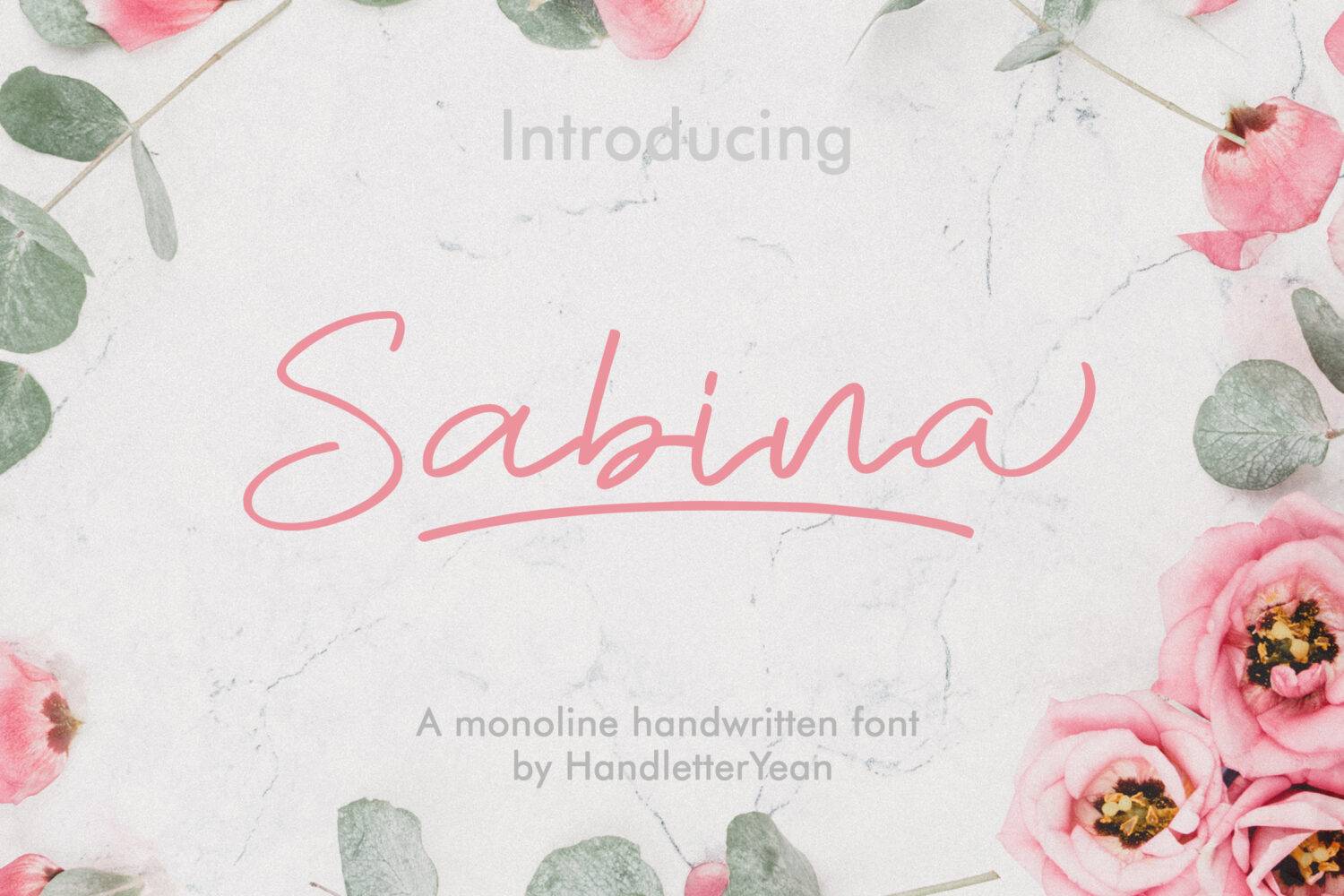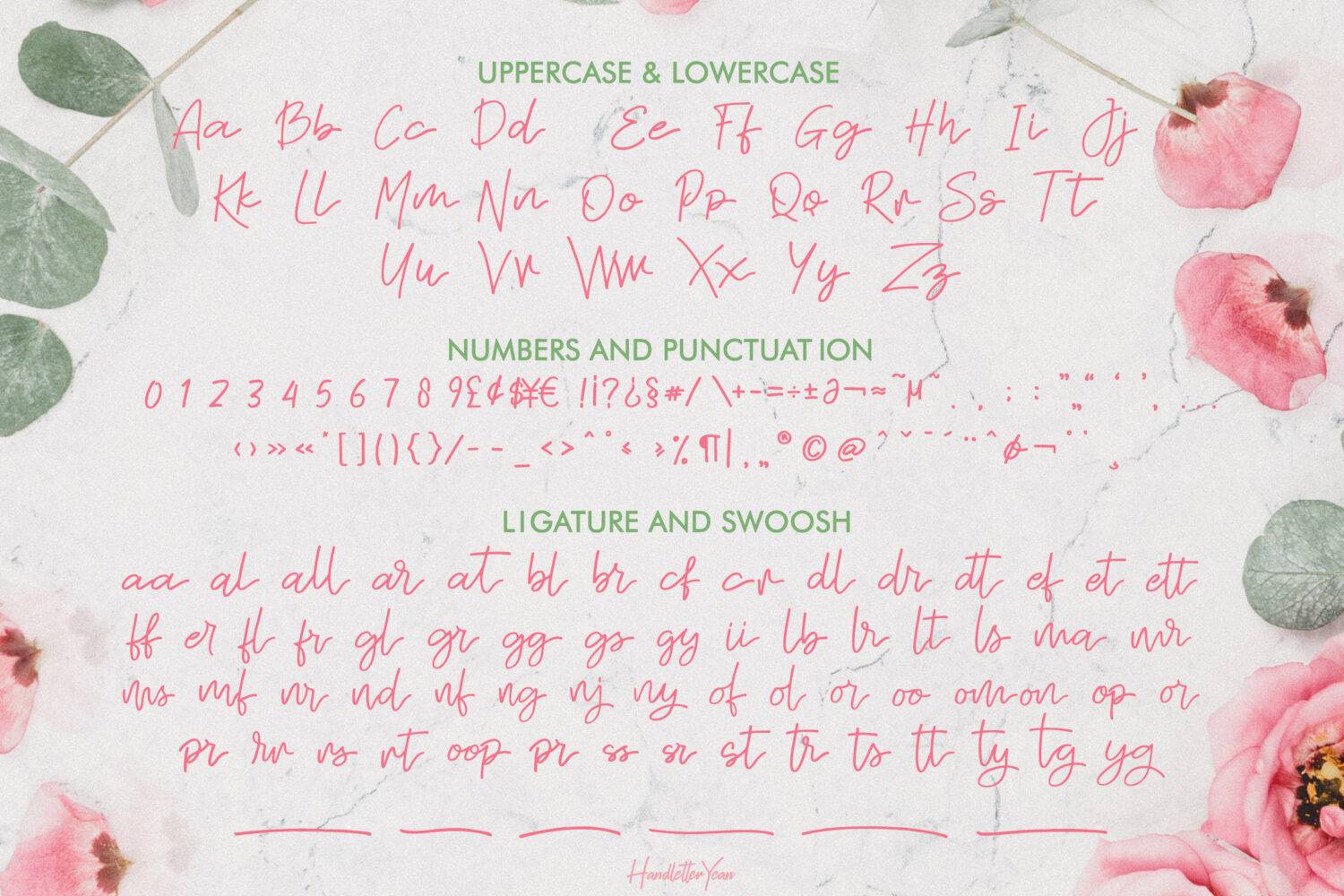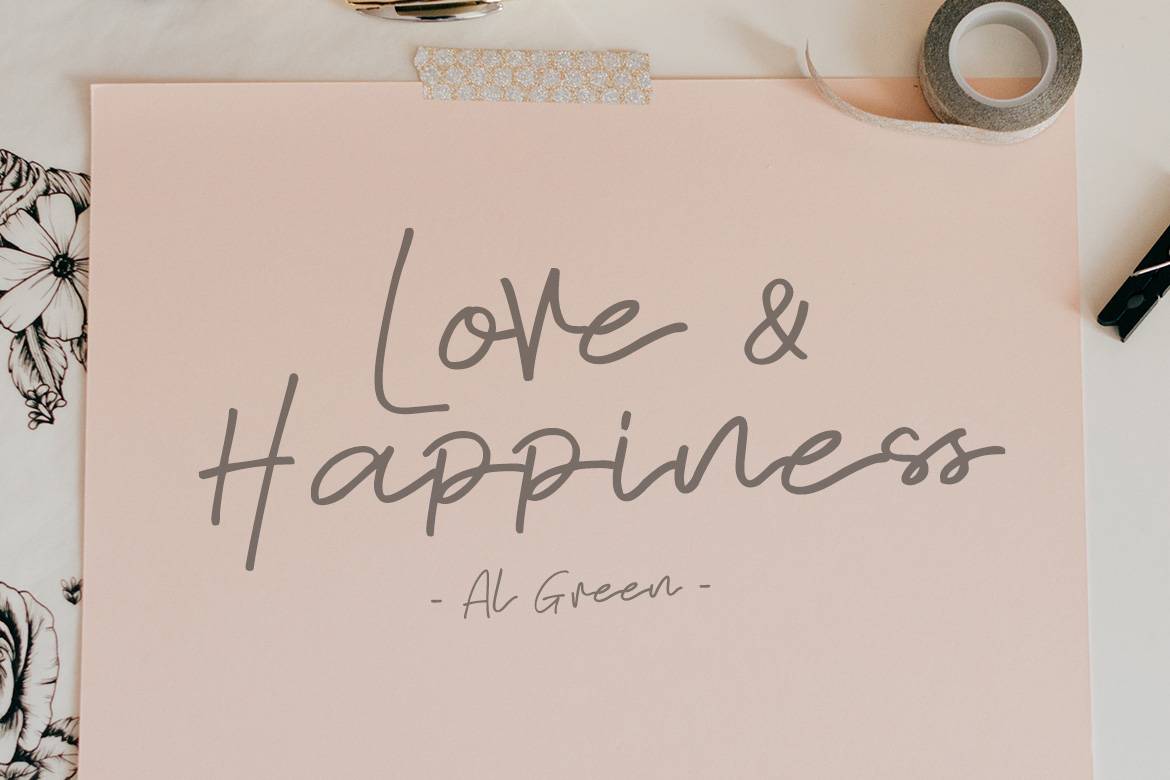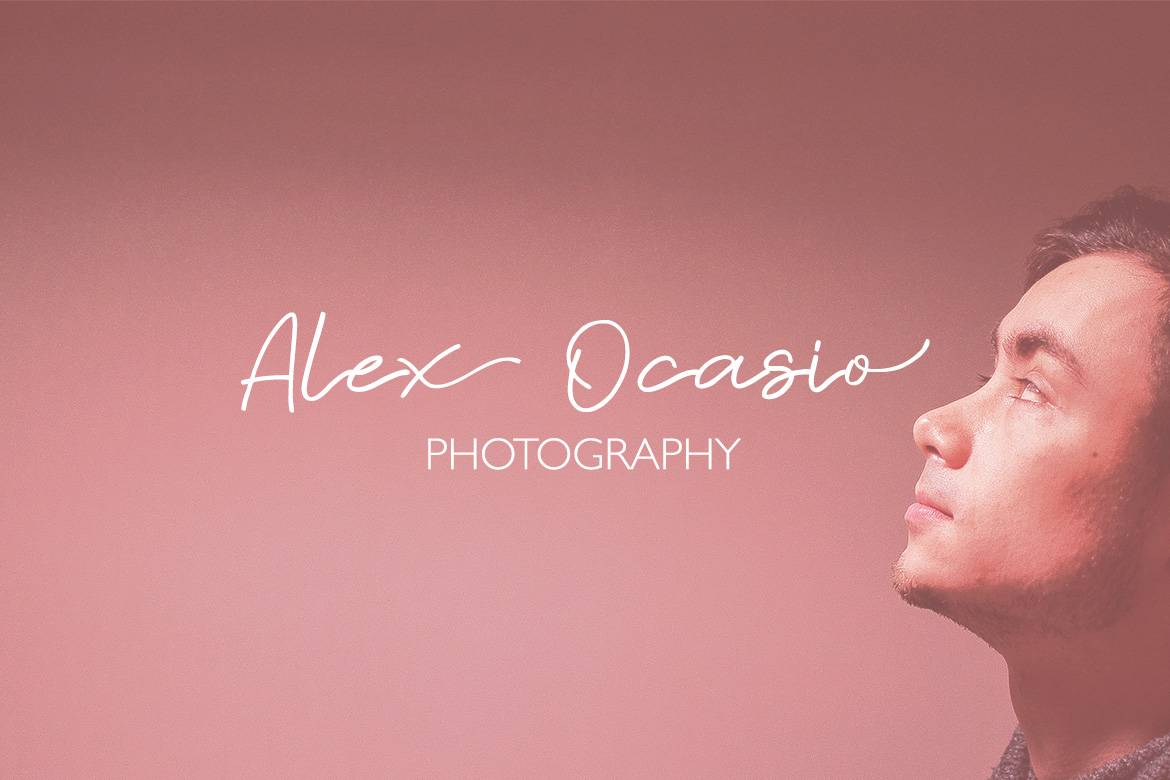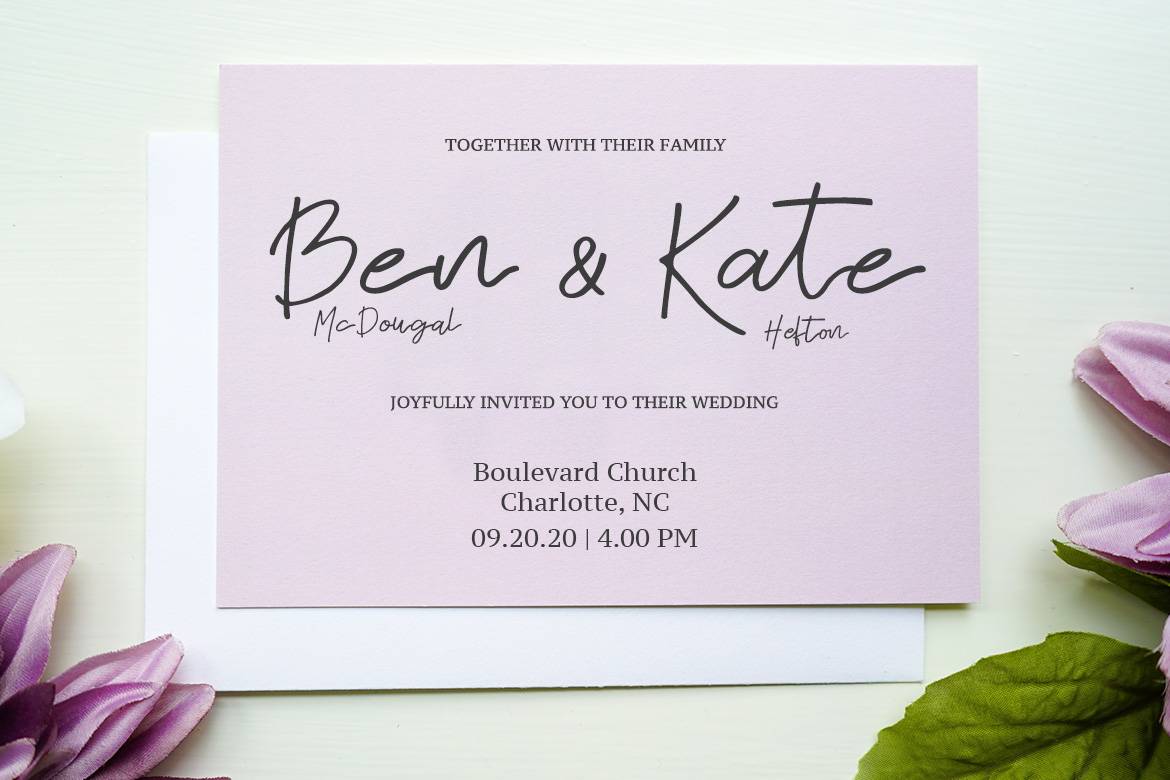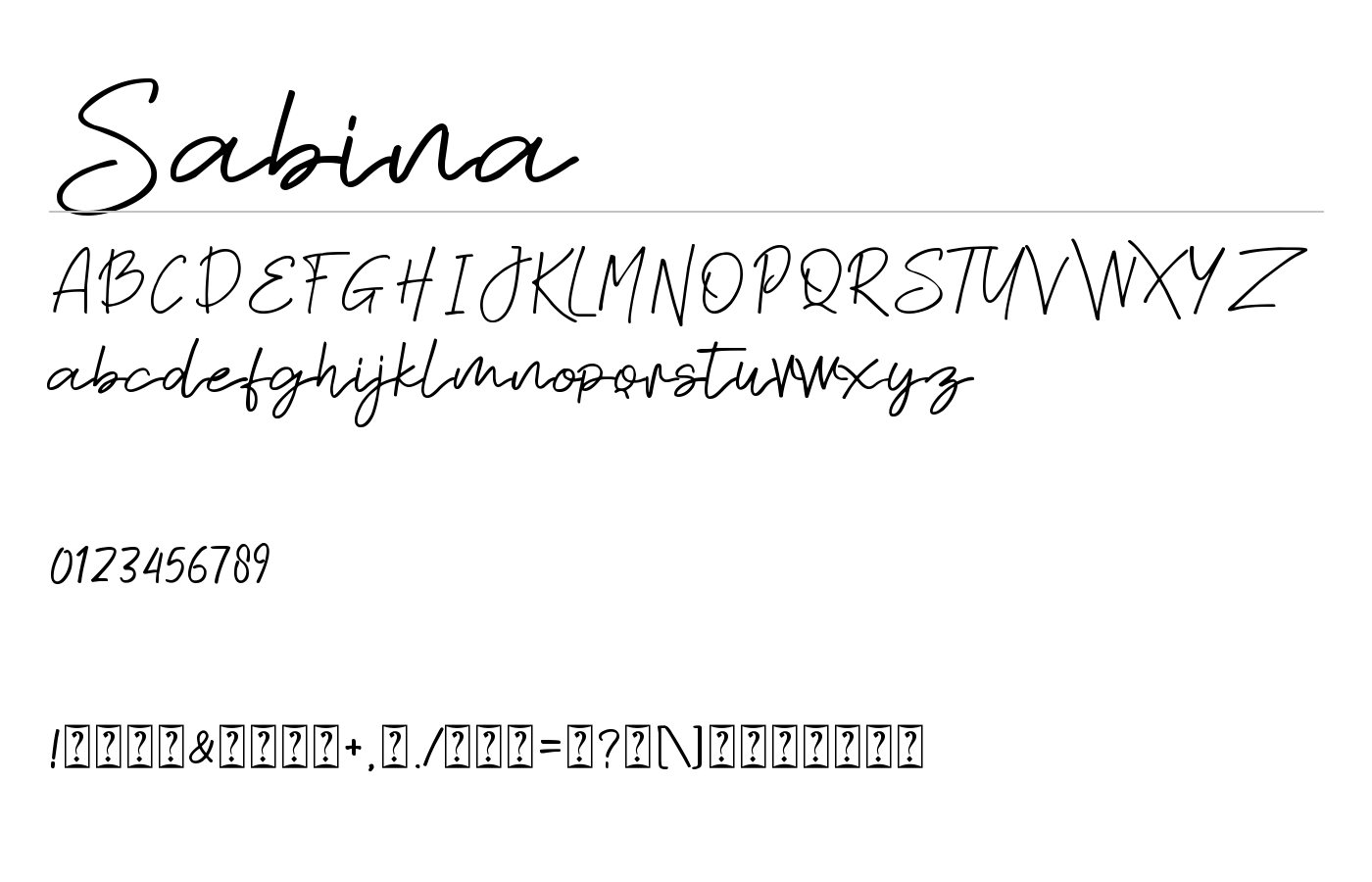
Sabina is a light, casual script font with a handwritten feel, characterized by its slender strokes, moderate x-height, and a playful yet refined flow in both uppercase and lowercase letters. Its airy, informal style makes it ideal for personal branding, creative projects, invitations, and lifestyle websites where a friendly and authentic tone is desired. This font works best in headings and short texts that benefit from a relatable, human touch without losing clarity.
Sabina Font
About Sabina Font
| Font family | Sabina Font |
| Designer | HandletterYean |